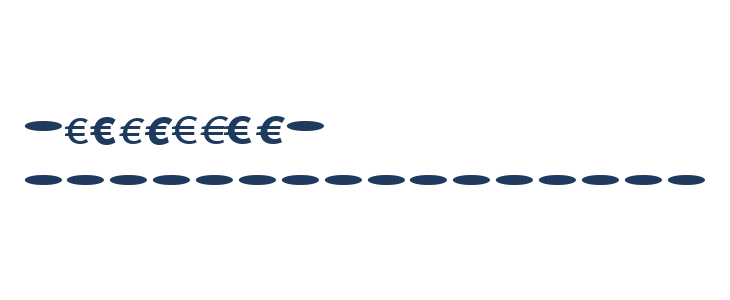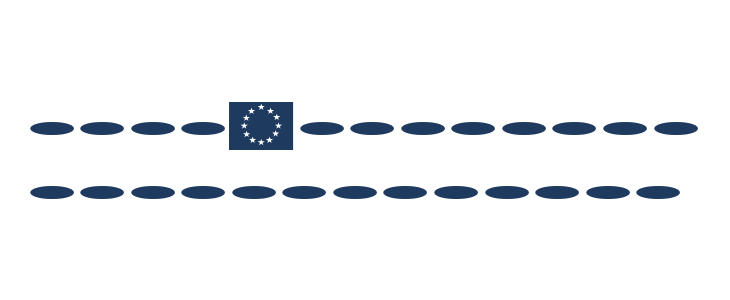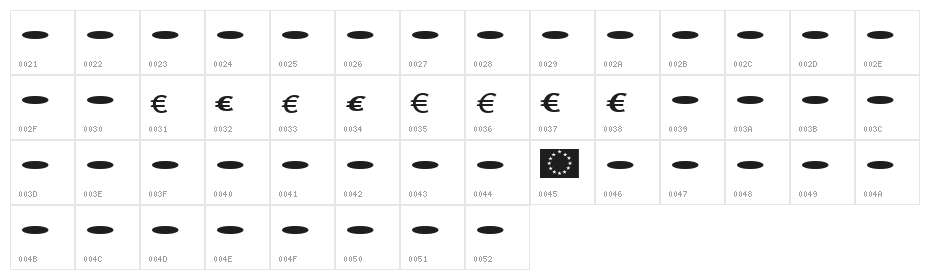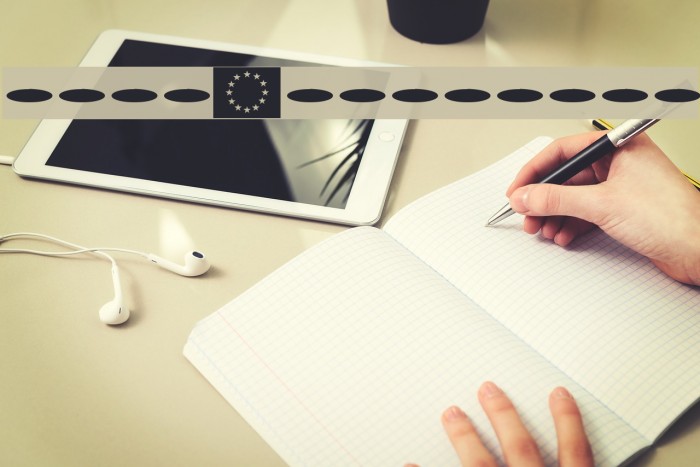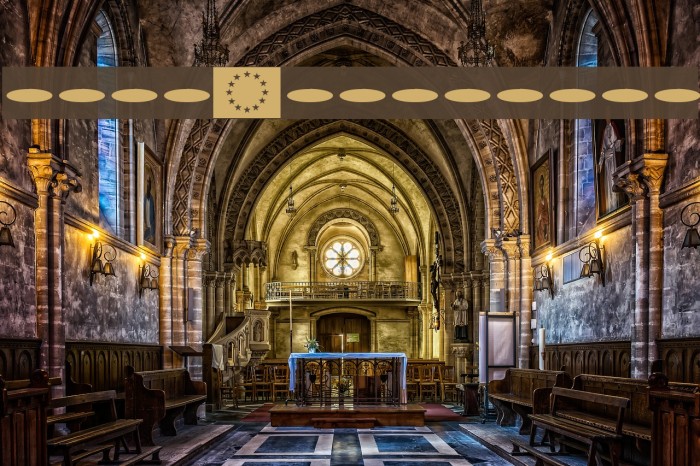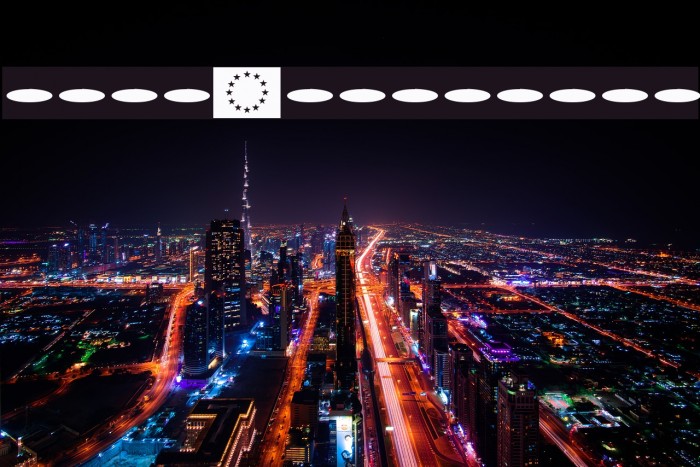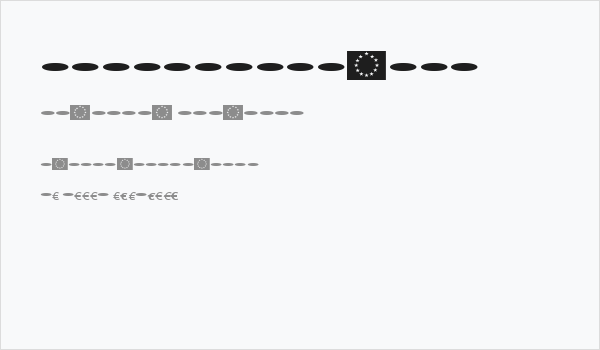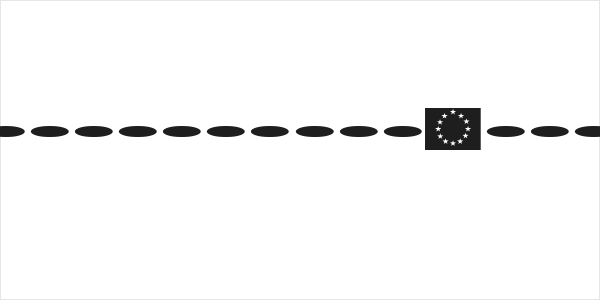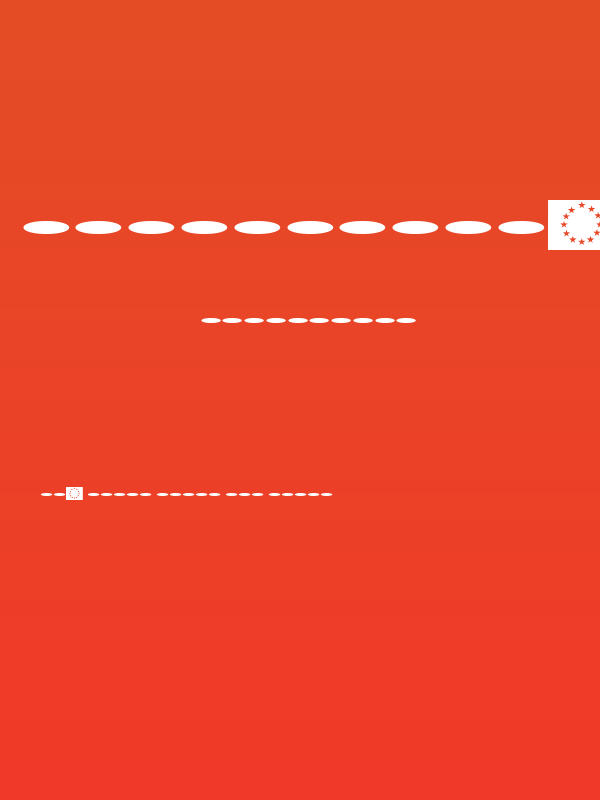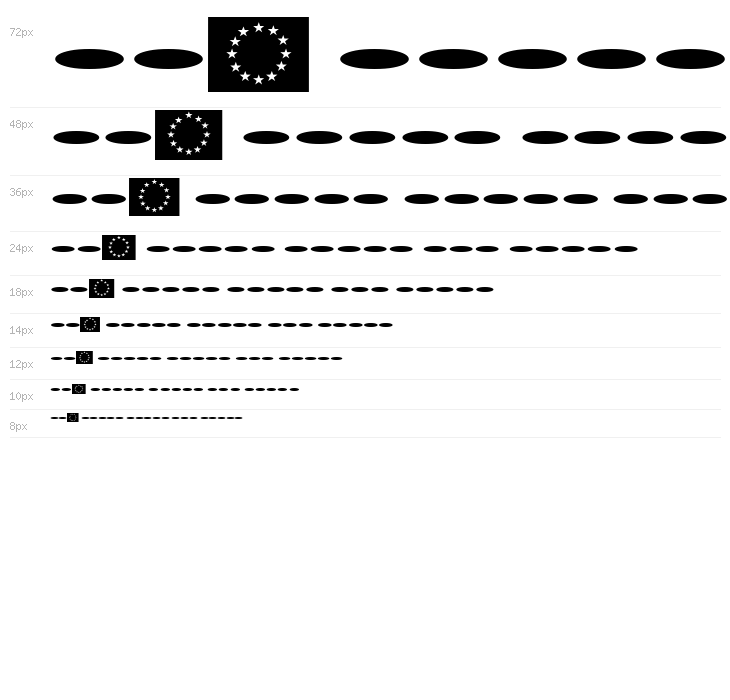
ScalaSans-Euro Font
ScalaSans-Euro Description
This is not a valid font. The image contains a series of ellipses and a European Union flag symbol, but no recognizable alphabetic or numeric characters are present. The design appears to be more of a decorative or symbolic representation rather than a functional typeface. Without standard characters, it cannot be used for typical text applications.
Use CaseNone
Proposed ProjectsNone, as this is not a functional font.